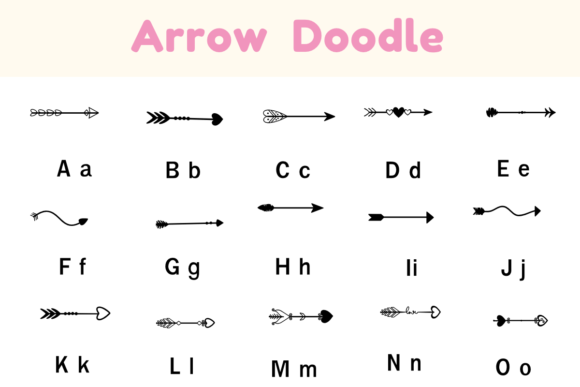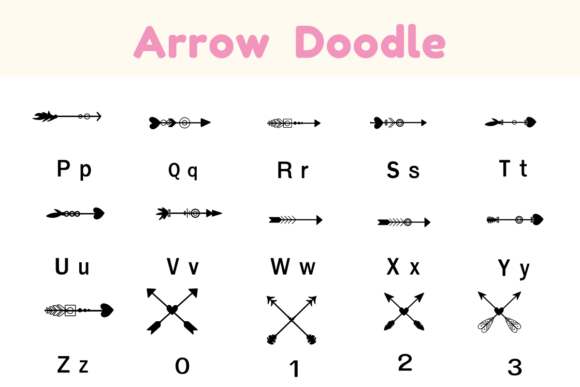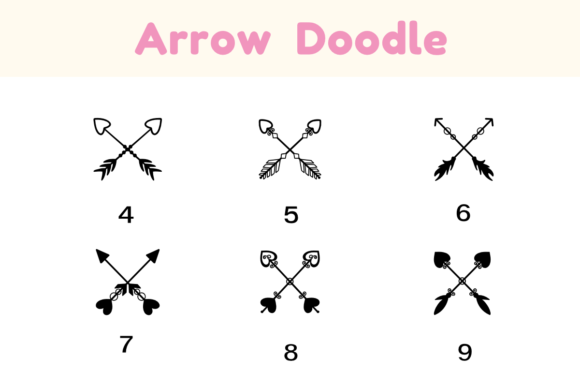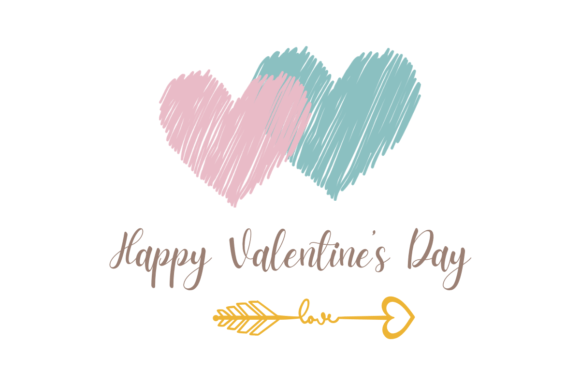
Introducing Arrow Doodle Font: Unleash Your Creativity with this Sketched Dingbats Font
Are you a designer, crafter, or DIY enthusiast looking for a unique and creative way to add a personal touch to your projects? Look no further than the Arrow Doodle Font, a dingbats font made with a sketched style that’s perfect for enhancing your creative endeavors. In this article, we’ll explore the features and benefits of Arrow Doodle Font, and show you how it can take your projects to the next level.
What is Arrow Doodle Font?
Arrow Doodle Font is a dingbats font that features a charming, hand-sketched design. The font is made up of a collection of arrows, shapes, and symbols that are perfect for adding a decorative touch to your projects. With its unique and playful style, Arrow Doodle Font is ideal for a wide range of creative applications, from invitations and DIY crafts to decorations, logos, and more.
Key Features of Arrow Doodle Font
• Sketched Style: Arrow Doodle Font features a charming, hand-sketched design that’s perfect for adding a personal touch to your projects.
• Dingbats Font: The font is made up of a collection of arrows, shapes, and symbols that can be used to enhance your creative projects.
• Versatile: Arrow Doodle Font is perfect for a wide range of creative applications, from invitations and DIY crafts to decorations, logos, and more.
Benefits of Using Arrow Doodle Font
So why choose Arrow Doodle Font for your creative projects? Here are just a few benefits of using this unique and versatile font:
• Adds a Personal Touch: Arrow Doodle Font allows you to add a personal touch to your projects, making them stand out from the crowd.
• Increases Creativity: The font’s unique and playful style can help inspire your creativity and take your projects to the next level.
• Versatile: Arrow Doodle Font can be used in a wide range of creative applications, making it a valuable addition to your design toolkit.
Ideas for Using Arrow Doodle Font
So what can you create with Arrow Doodle Font? Here are just a few ideas to get you started:
• Invitations: Use Arrow Doodle Font to create unique and personalized invitations for parties, weddings, and other special events.
• DIY Crafts: Add a decorative touch to your DIY crafts, such as scrapbooking, card making, and jewelry making.
• Decorations: Use Arrow Doodle Font to create custom decorations, such as garlands, banners, and wall art.
• Logos: Use the font to create custom logos for your business or brand.
Font Name Arrow Doodle Font
Author Nun Sukhwan
In conclusion, Arrow Doodle Font is a unique and versatile dingbats font that’s perfect for designers, crafters, and DIY enthusiasts. With its charming, hand-sketched design and wide range of creative applications, this font is sure to inspire your creativity and take your projects to the next level. So why wait? Download Arrow Doodle Font today and start creating!
Tips and Resources
Here are a few tips and resources to help you get the most out of Arrow Doodle Font:
• Experiment with Different Sizes and Colors: Try experimenting with different sizes and colors to add depth and interest to your projects.
• Combine with Other Fonts: Combine Arrow Doodle Font with other fonts to create unique and interesting typography.
• Use in Digital Projects: Use Arrow Doodle Font in digital projects, such as social media graphics, blog posts, and email marketing campaigns.